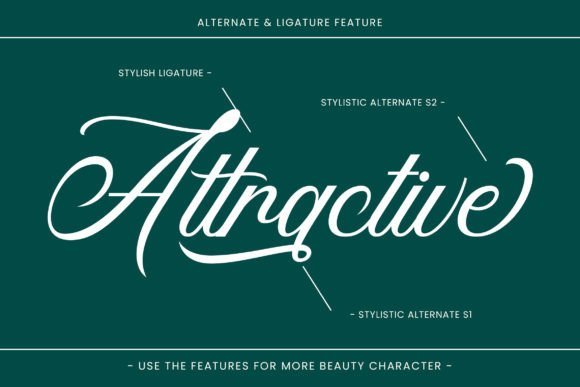
Sage Butterfly Font
Sage Butterfly font is a fancy, graceful typeface with flowing curves and stylish lettering. It’s perfect for adding elegance and charm to your designs, like invitations or logos.